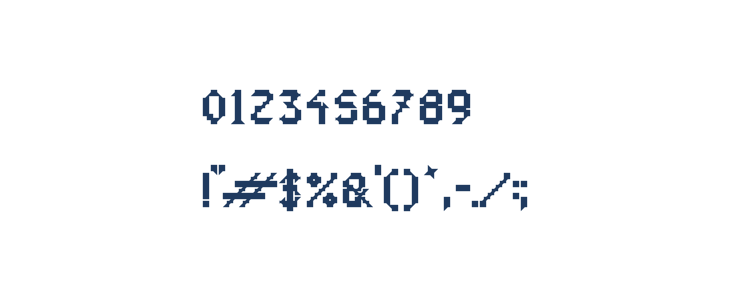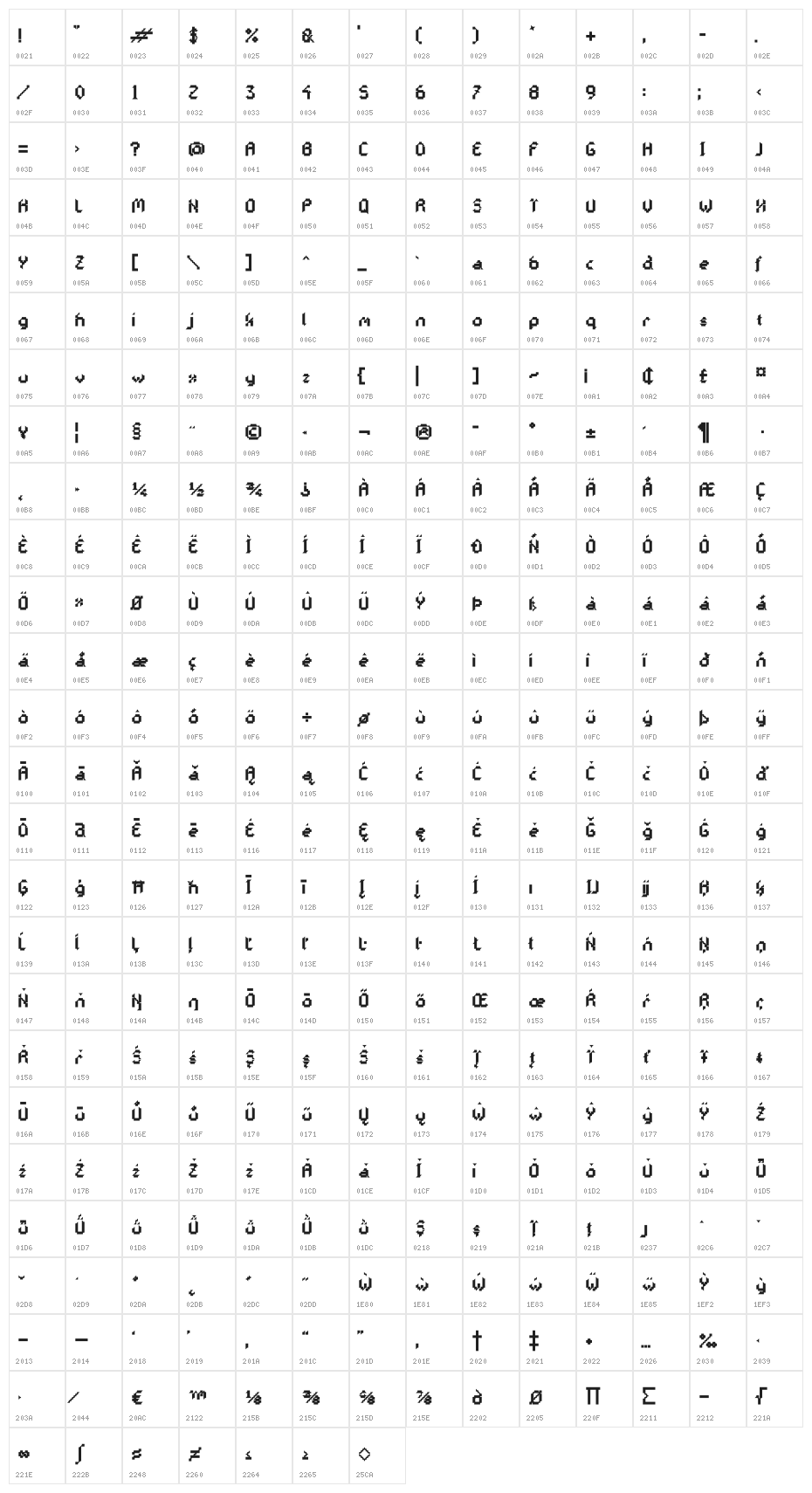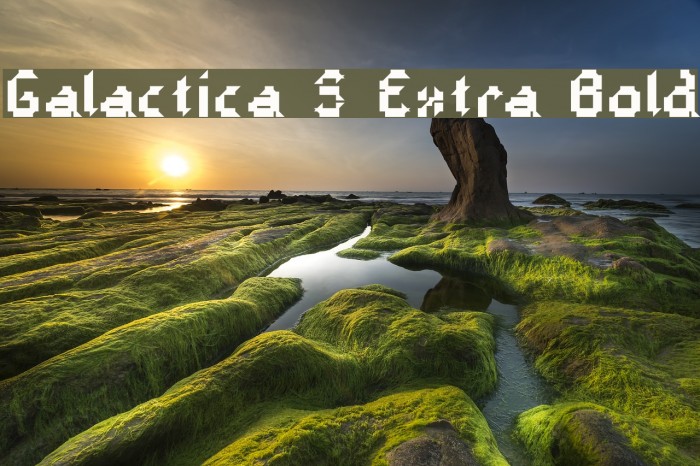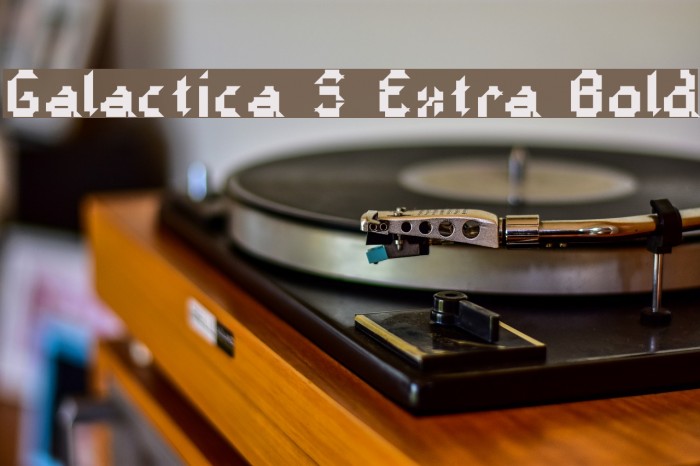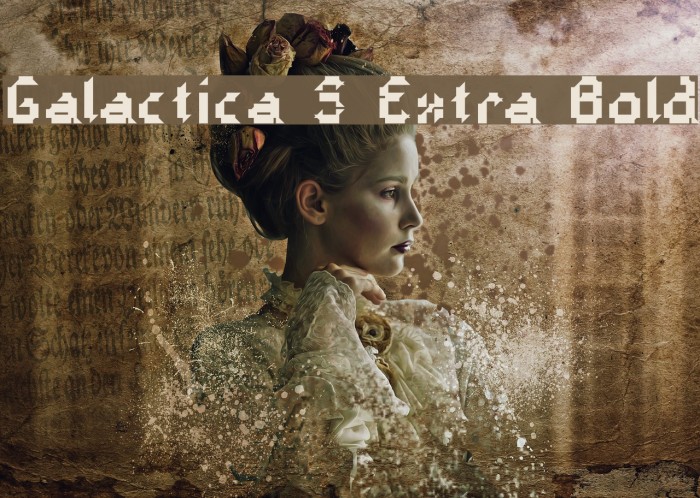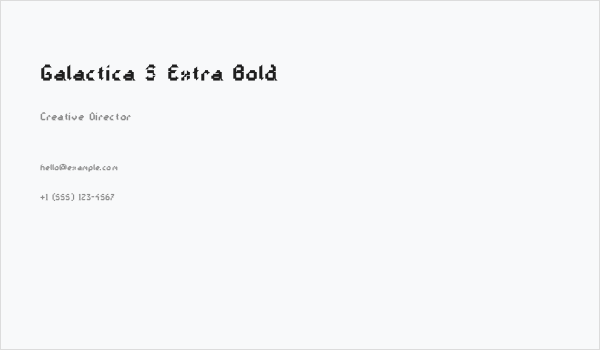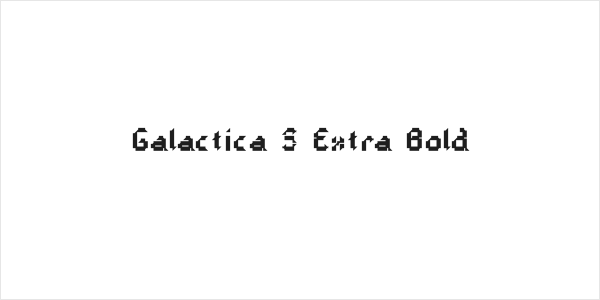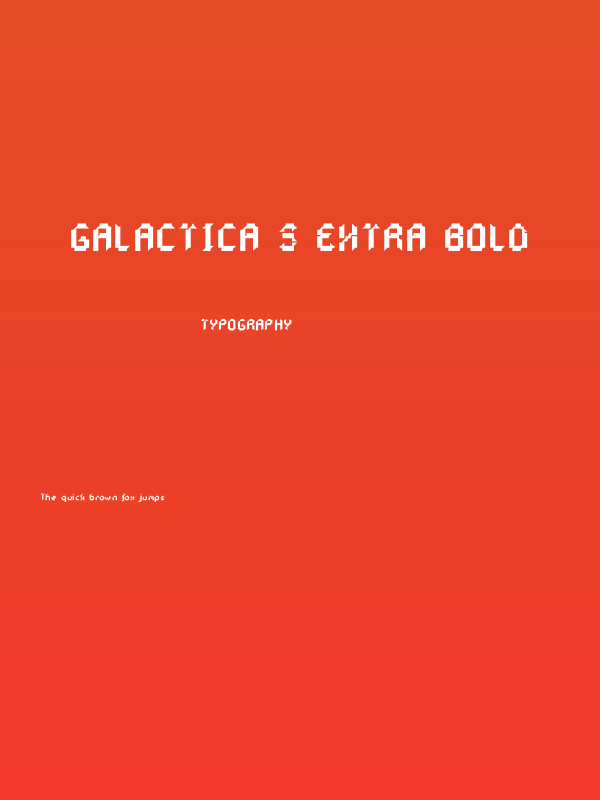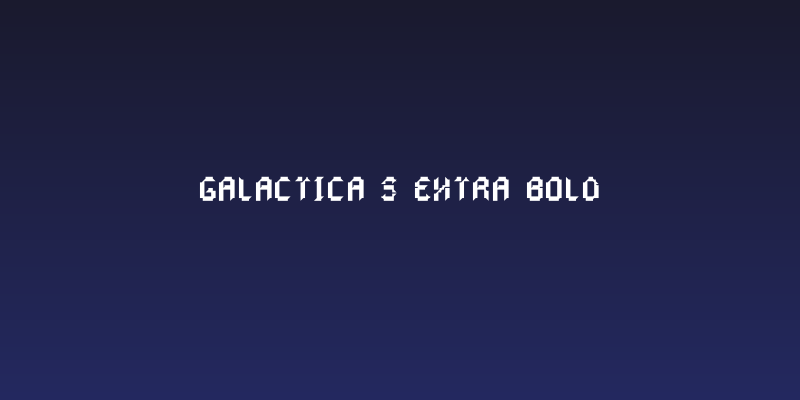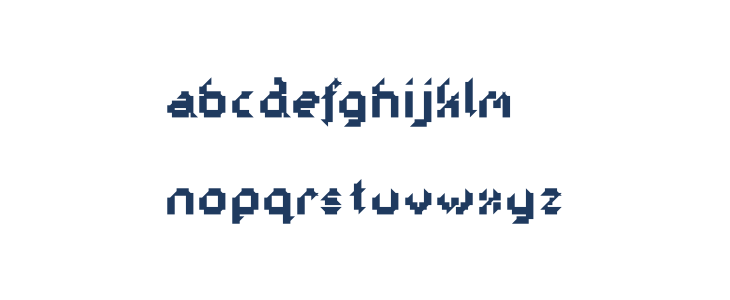
Galactica S Extra Bold Font
Galactica S Extra Bold Description
This font features a bold, geometric design with a futuristic aesthetic. The characters are constructed with sharp angles and a blocky appearance, giving it a digital or sci-fi feel. The uppercase and lowercase letters maintain a consistent style, with the lowercase being slightly more compact. Numbers and special characters follow the same angular and bold design, ensuring uniformity across all glyphs. The font's unique style makes it stand out, ideal for projects that require a modern and edgy look.